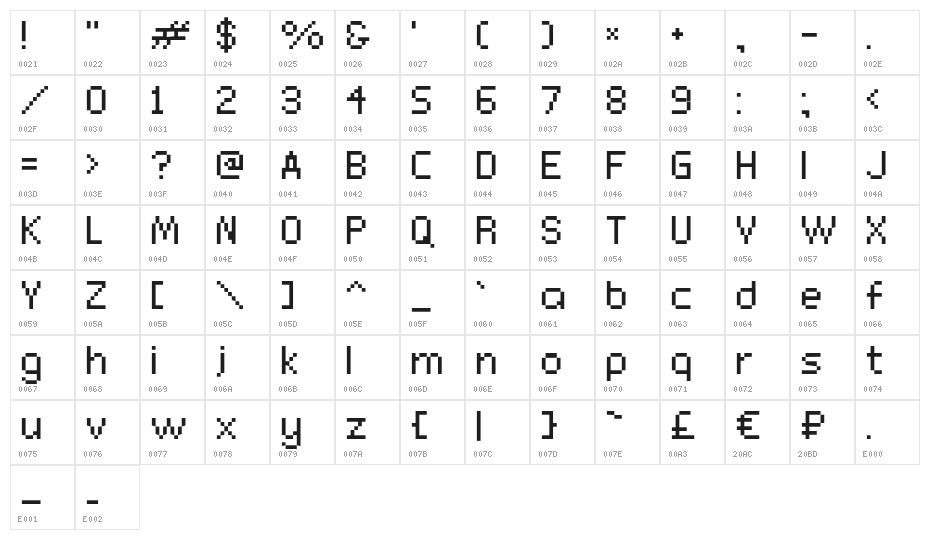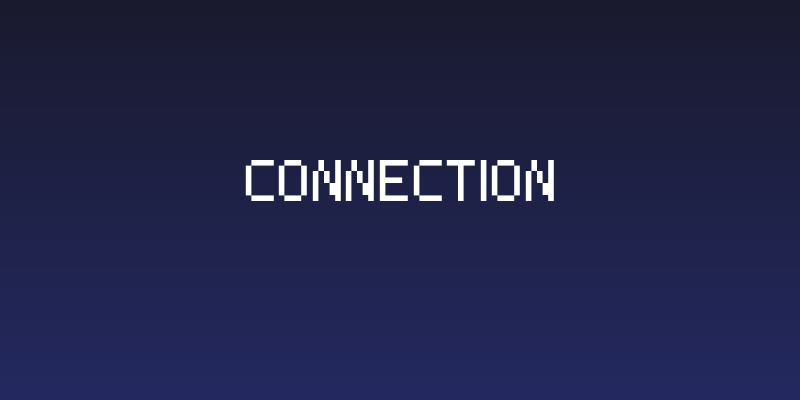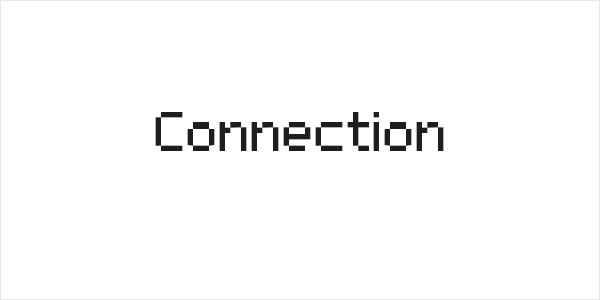
Connection Font
Connection Description
This font features a pixelated, blocky design reminiscent of early digital displays and video games. Each character is constructed with a grid-like precision, giving it a distinctly retro and technological feel. The uppercase and lowercase letters maintain a uniform height, contributing to a cohesive and structured appearance. Numbers and special characters are designed with the same pixelated style, ensuring consistency across all glyphs. The font's geometric nature makes it ideal for projects that require a digital or vintage computer aesthetic.
| Overall Style | Retro, Digital |
| Use Case | Headlines, Logos, Digital displays |
| Proposed Projects | Ideal for video game design, retro-themed graphics, digital art, and tech-related branding. |